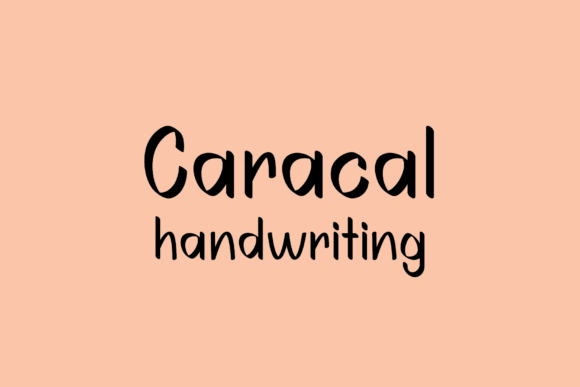
Discover the Joy of Handwritten Design
Remember the thrill of creating something from scratch, when the possibilities seem endless and your imagination runs wild? For designers, those moments are what make our jobs so rewarding. It’s the spark of inspiration that sets our creativity ablaze, and we can’t wait to see our ideas come to life.
That’s exactly what the Caracal Font is designed to evoke. A fun and friendly handwritten font, Caracal adds a touch of whimsy to any project. Whether you’re crafting a logo, designing a wedding invitation, or creating an advertisement, this typeface is the perfect companion to bring out the best in your designs.
With its quirky charm and effortless style, the Caracal Font is an invaluable tool for designers. Its versatility makes it a must-have for any project, from print to digital, and its friendly vibe is sure to leave a lasting impression on your audience.
Key Features of Caracal Font
- Unique Characteristics: The font features a unique blend of geometric and organic elements, resulting in a distinctive and modern aesthetic.
Caracal Font Review
As a designer, I was excited to dive into the Caracal font and see what it had to offer. Here’s my honest take.
- Unique design: Caracal has a distinctive, modern look that’s perfect for brands and projects that want to stand out.
- High legibility: The font is well-designed for digital use, making it easy to read on screens and in print.
- Good range of weights: The font comes in a range of weights, from light to bold, giving designers plenty of options for different applications.
- Not suitable for body text: While Caracal is great for headlines and titles, it may not be the best choice for large blocks of body text due to its condensed design.
- Some characters may be tricky to read: Certain characters, like the lowercase ‘i’ and ‘l’, may be difficult to distinguish from one another in certain contexts.
Overall, I think Caracal is a solid choice for designers who want a unique and modern font for their projects. While it may have some limitations, its strengths make it a great option for many applications.
Tips for Getting the Most Out of Caracal Font
For best results, use Caracal Font in conjunction with high-quality images and design elements. Experiment with different font sizes and styles to achieve the desired visual impact. Additionally, consider pairing Caracal Font with other fonts to create a unique and visually appealing design.
Caracal Font is ideal for use in modern and sleek designs, such as logos, business cards, and digital marketing materials. It is also suitable for use in academic and technical writing, such as research papers and presentations.